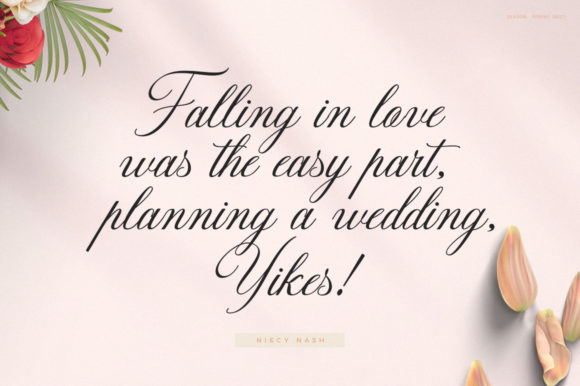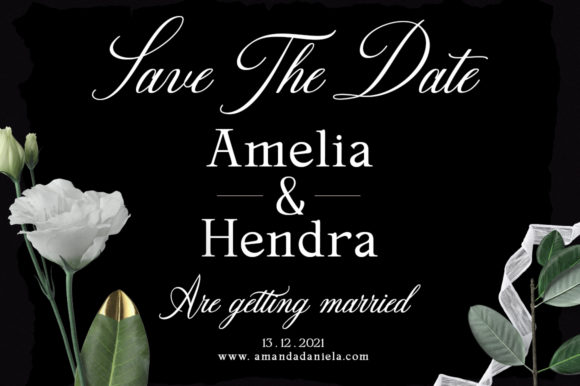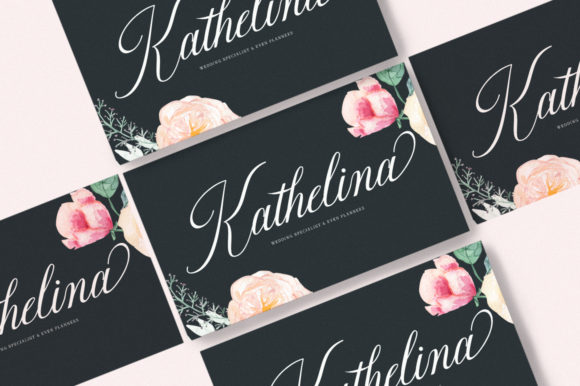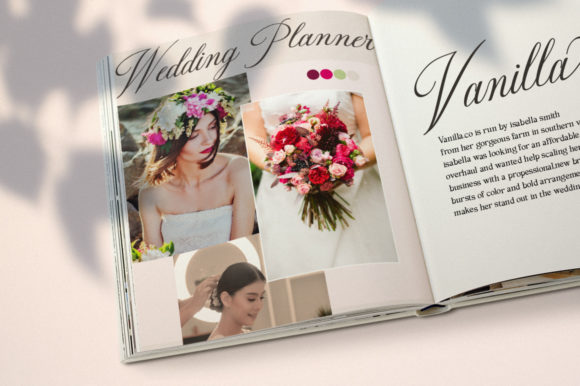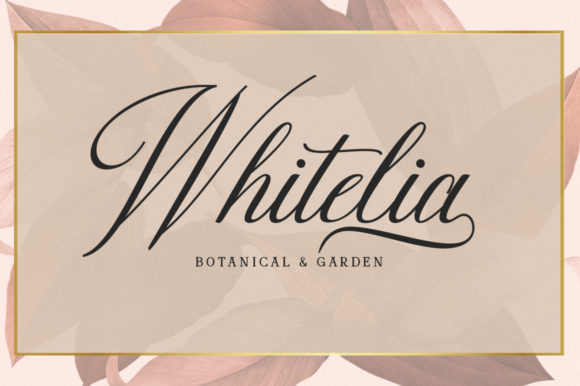
Discover the Elegance of Darshye Font: Elevate Your Designs with a Touch of Sophistication
In the world of typography, few fonts manage to convey elegance and sophistication as effortlessly as Darshye Font. This beautiful, handwritten font has captured the hearts of designers and crafters alike, and for good reason. With its flowing lines, stunning glyphs, and gorgeous alternates, Darshye Font is the perfect addition to any design that requires a touch of refinement and personal flair. Whether you’re working on wedding invitations, thank you cards, quotes, greeting cards, logos, or business cards, Darshye Font is sure to make your creations stand out.
The Characteristics of Darshye Font
So, what makes Darshye Font so special? For starters, it features a varying baseline, which gives it a delightfully organic and human feel. This characteristic alone sets it apart from more traditional fonts, allowing it to bring a sense of warmth and personality to any design. Additionally, Darshye Font boasts smooth lines that flow effortlessly across the page, creating a beautiful, fluid look that’s perfect for designs that require a bit of flair.
Another standout feature of Darshye Font is its gorgeous glyphs. Glyphs are the building blocks of typography, and Darshye Font’s are particularly noteworthy for their intricate details and beautiful design. These glyphs add an extra layer of elegance to the font, making it perfect for designs that require a bit of sophistication. And with stunning alternates available, you can easily mix things up and create unique, one-of-a-kind designs that showcase your creativity.
Uses for Darshye Font
So, what can you use Darshye Font for? The possibilities are endless, but here are a few ideas to get you started:
- Wedding Invitations: Darshye Font is a popular choice for wedding invitations, and for good reason. Its elegant, flowing lines make it perfect for formal events, and its varying baseline adds a touch of whimsy and romance.
- Thank You Cards: Whether you’re sending a thank you note to a friend or a customer, Darshye Font is a great choice. Its smooth lines and gorgeous glyphs make it perfect for expressing gratitude in style.
- Quotes: Add a touch of sophistication to your quotes with Darshye Font. Its stunning alternates and elegant lines make it perfect for showcasing inspirational sayings and phrases.
- Greeting Cards: From birthdays to holidays, Darshye Font is a great choice for any type of greeting card. Its beautiful design and flowing lines make it perfect for expressing your sentiments in a unique and stylish way.
- Logos: Darshye Font can even be used to create beautiful logos that showcase your brand’s personality and style. Its elegant design and smooth lines make it perfect for businesses that want to stand out from the crowd.
- Business Cards: Finally, Darshye Font is a great choice for business cards. Its varying baseline and gorgeous glyphs make it perfect for adding a touch of sophistication to your professional correspondence.
Why Designers and Crafters Love Darshye Font
So, why do designers and crafters love Darshye Font so much? For one, it’s incredibly versatile. Whether you’re working on a formal design or something more playful, Darshye Font can adapt to fit your needs. It’s also easy to use, with a simple and intuitive design that makes it easy to get started. And with its beautiful design, Darshye Font is sure to add a touch of elegance and sophistication to any project.
But perhaps the biggest reason designers and crafters love Darshye Font is that it allows them to add a personal touch to their designs. With its varying baseline and stunning alternates, Darshye Font makes it easy to create unique, one-of-a-kind designs that showcase your personality and style. Whether you’re a professional designer or a crafter working on a hobby project, Darshye Font is the perfect choice for anyone looking to add a bit of elegance and sophistication to their work.
| Font Name | Darshye Font |
| Author | Solidtype |
In conclusion, Darshye Font is a beautiful, elegant font that’s perfect for designers and crafters who want to add a touch of sophistication to their work. With its varying baseline, smooth lines, gorgeous glyphs, and stunning alternates, Darshye Font is the perfect choice for any design that requires a handwritten touch. Whether you’re working on wedding invitations, thank you cards, quotes, greeting cards, logos, or business cards, Darshye Font is sure to make your creations stand out. So why wait? Give Darshye Font a try today and see the difference it can make in your designs!